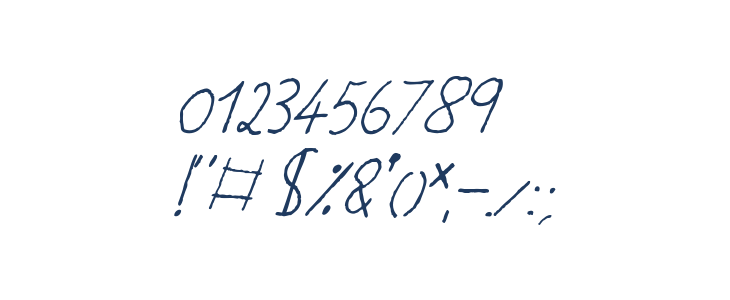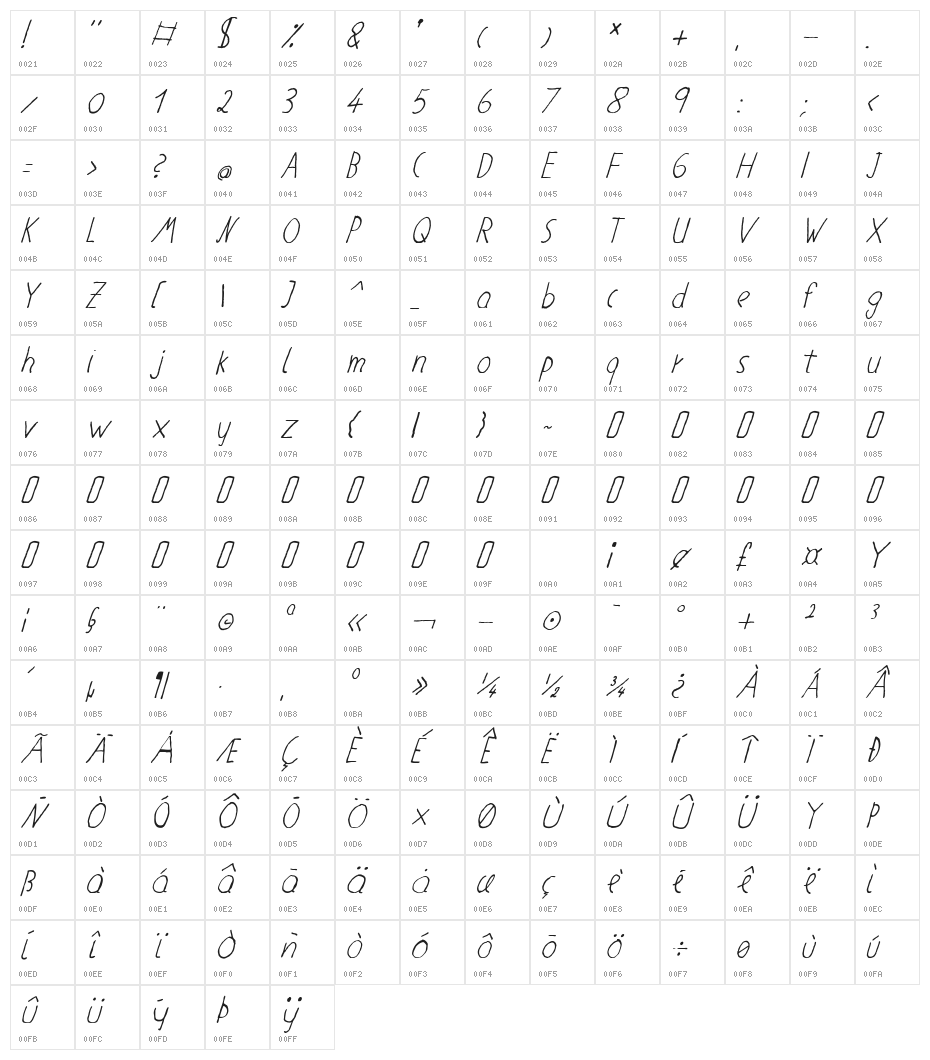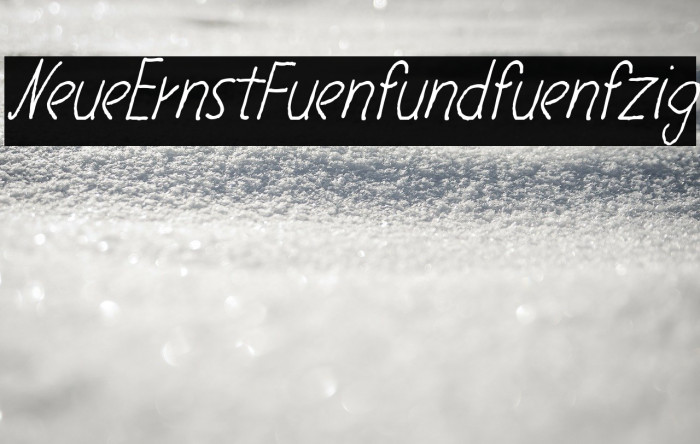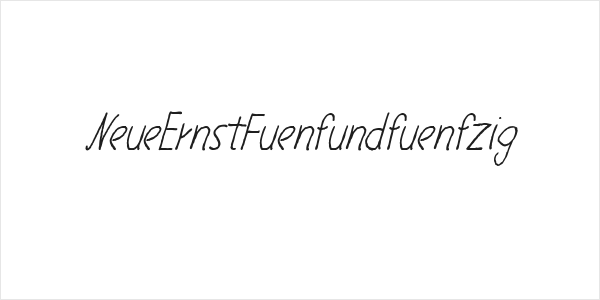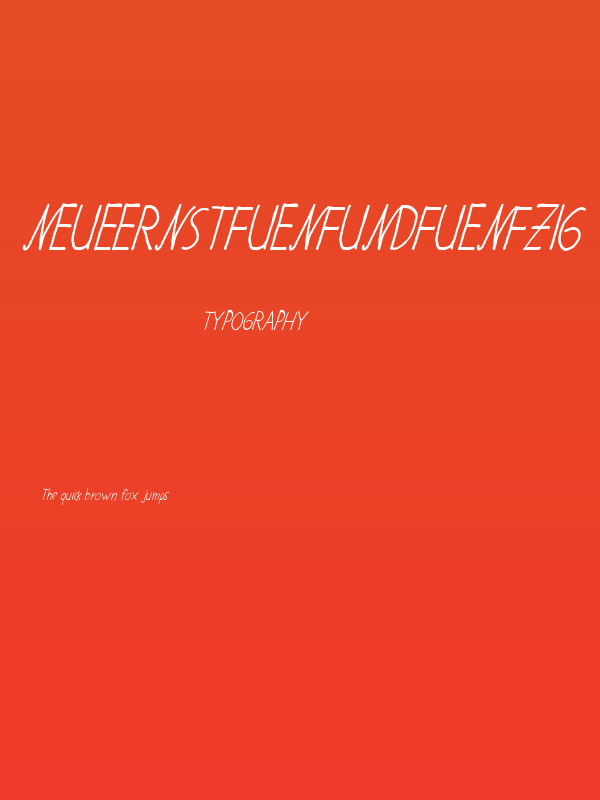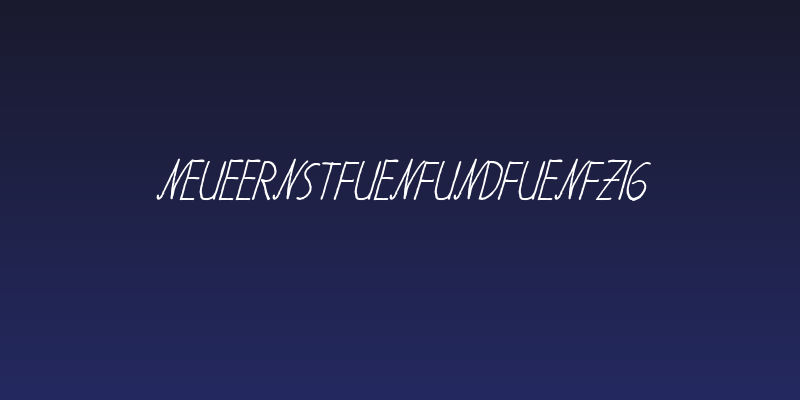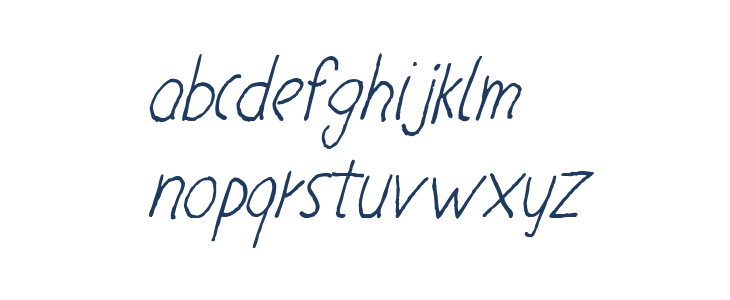
NeueErnstFuenfundfuenfzig Font
NeueErnstFuenfundfuenfzig Description
This font exhibits a handwritten style with a casual and informal appearance. The characters are slightly slanted, giving it a dynamic and lively feel. The strokes are uneven, mimicking the natural flow of handwriting, which adds a personal touch to the text. The uppercase and lowercase letters are distinct, with a playful yet legible design. The numbers and special characters maintain the same handwritten aesthetic, ensuring consistency across all elements. This font is ideal for projects that require a personal or creative touch, such as invitations, greeting cards, or artistic designs.
| Overall Style | Casual, Informal |
| Use Case | Headlines, Artistic designs, Personal projects |
| Proposed Projects | Ideal for invitations, greeting cards, artistic designs, and personal projects. |